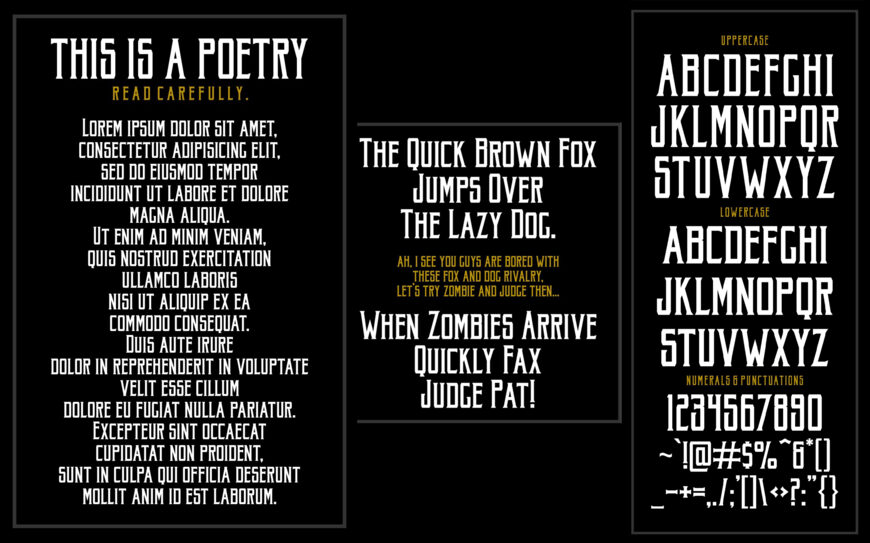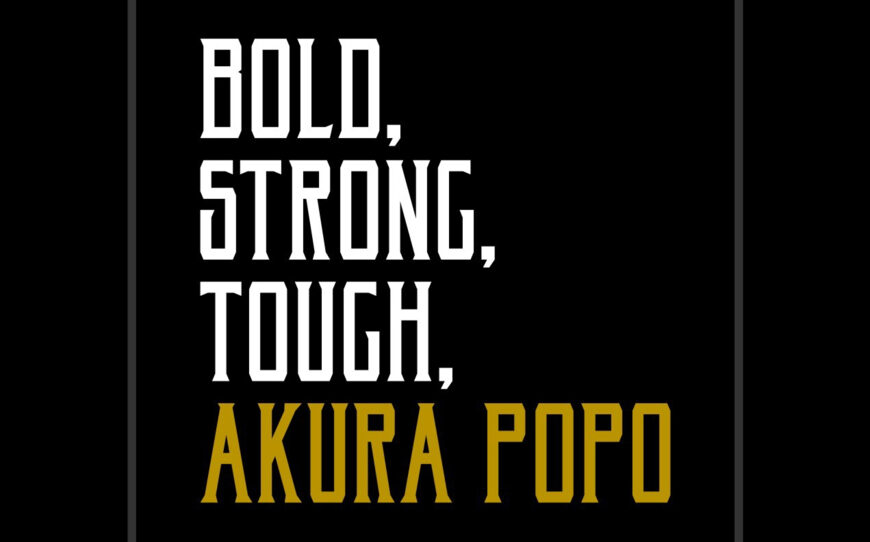
Akura Popo Font
Akura Popo is a vintage and classic condensed serif font with bold, strong and tough looking style. Suits best for logo, headline, letterhead, sports theme designs, etc.